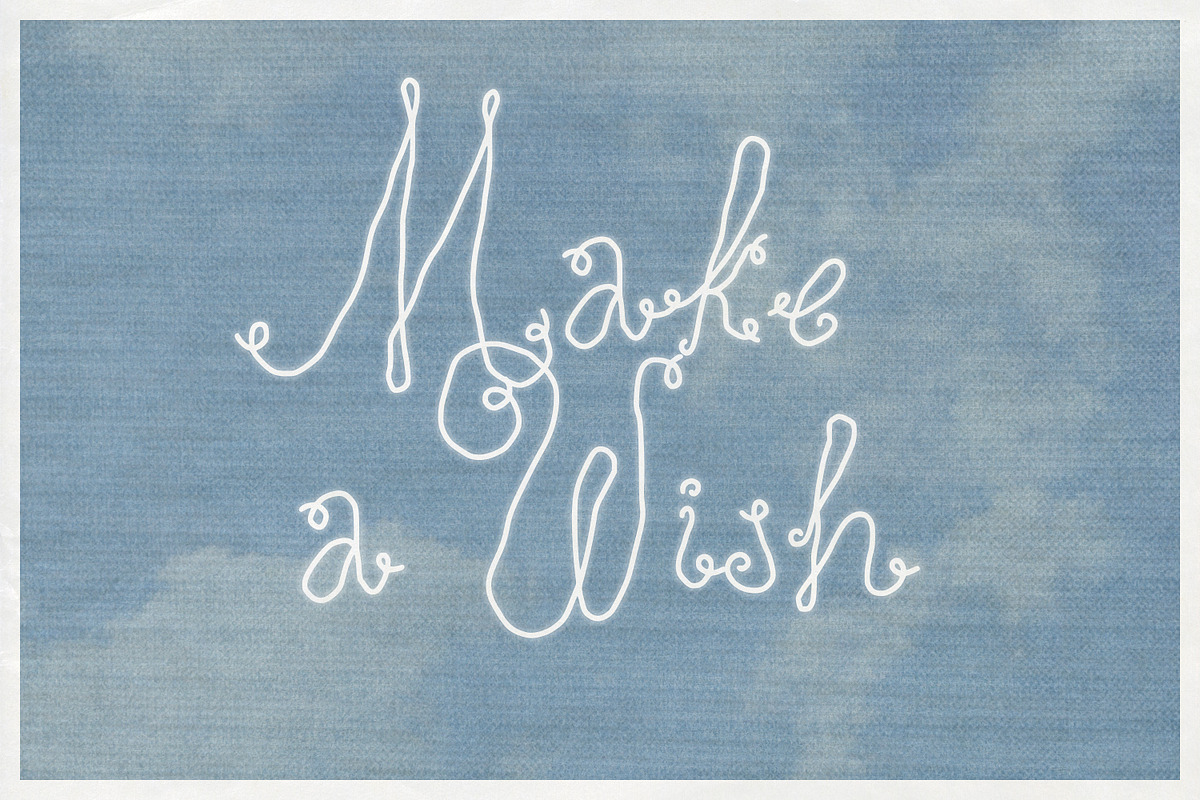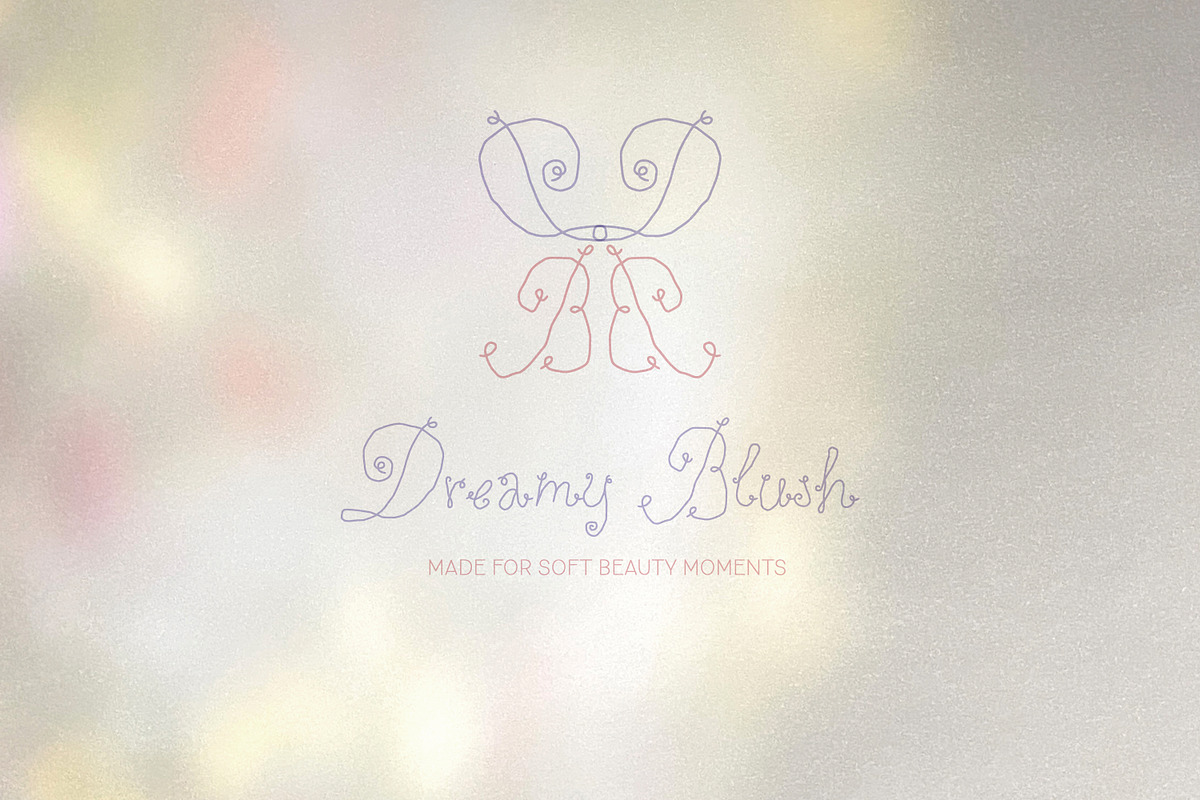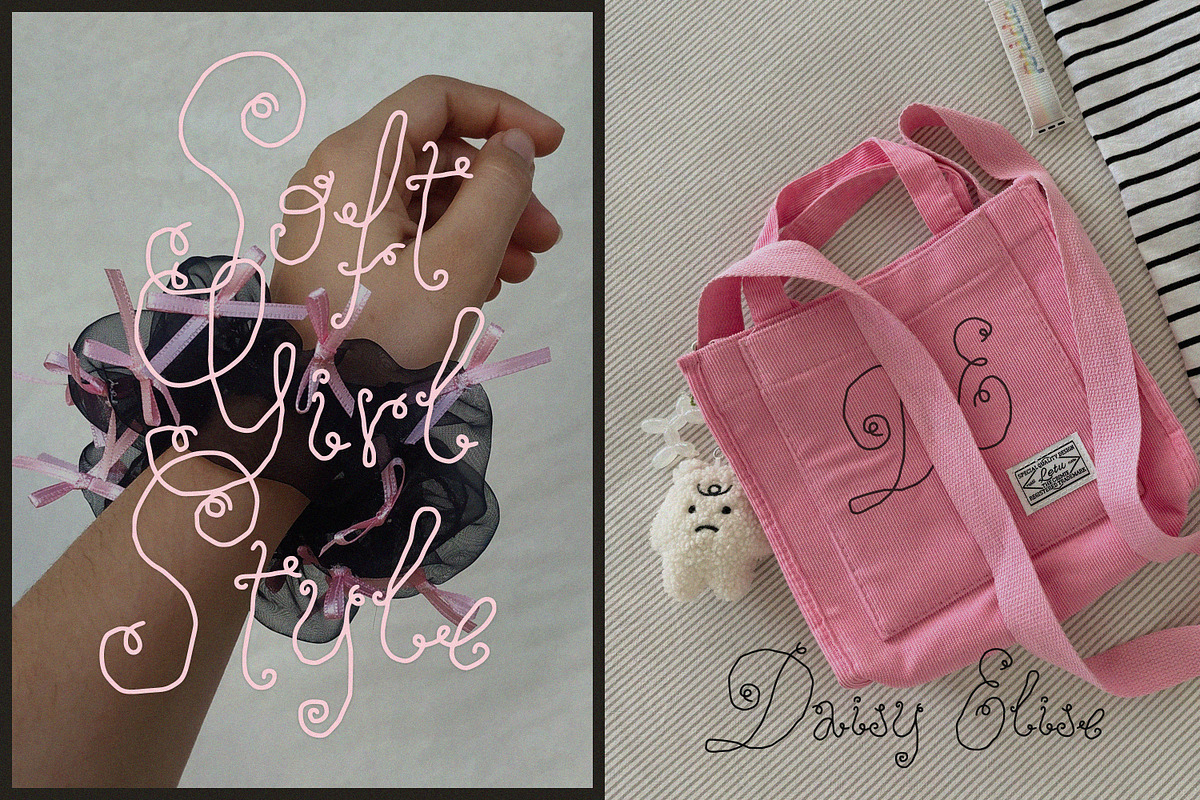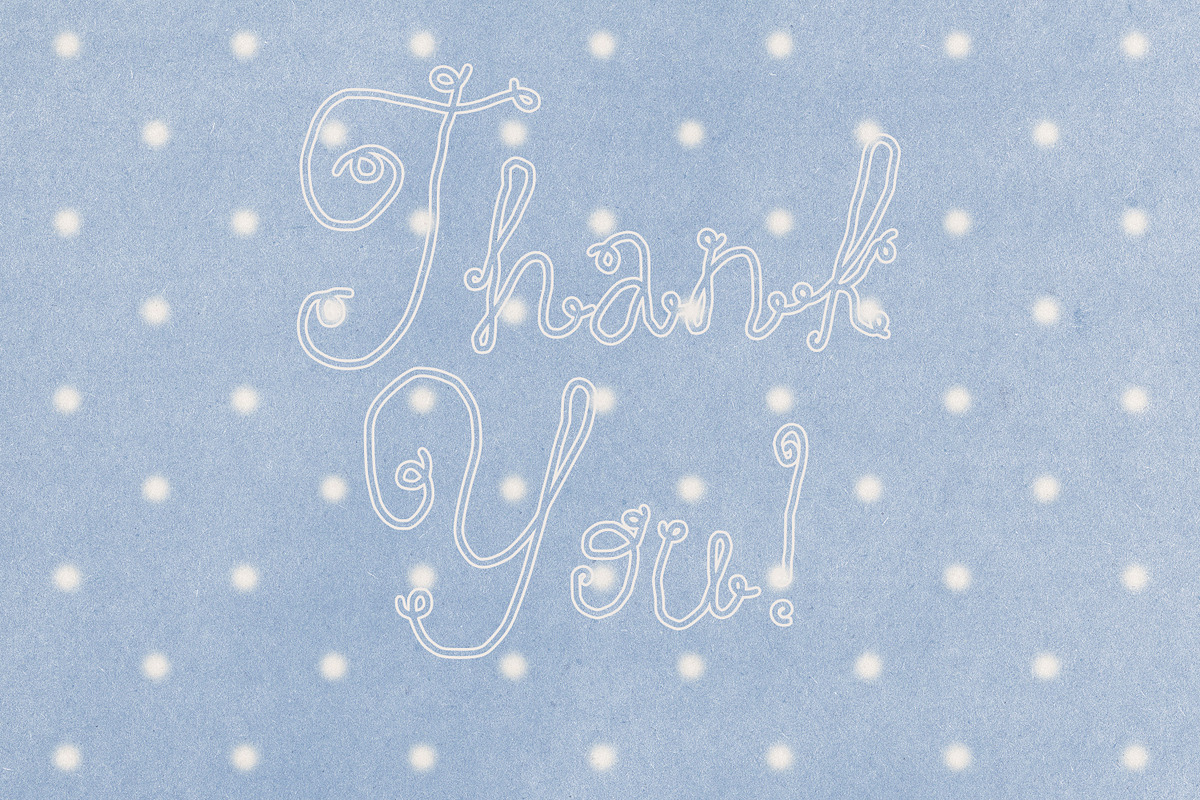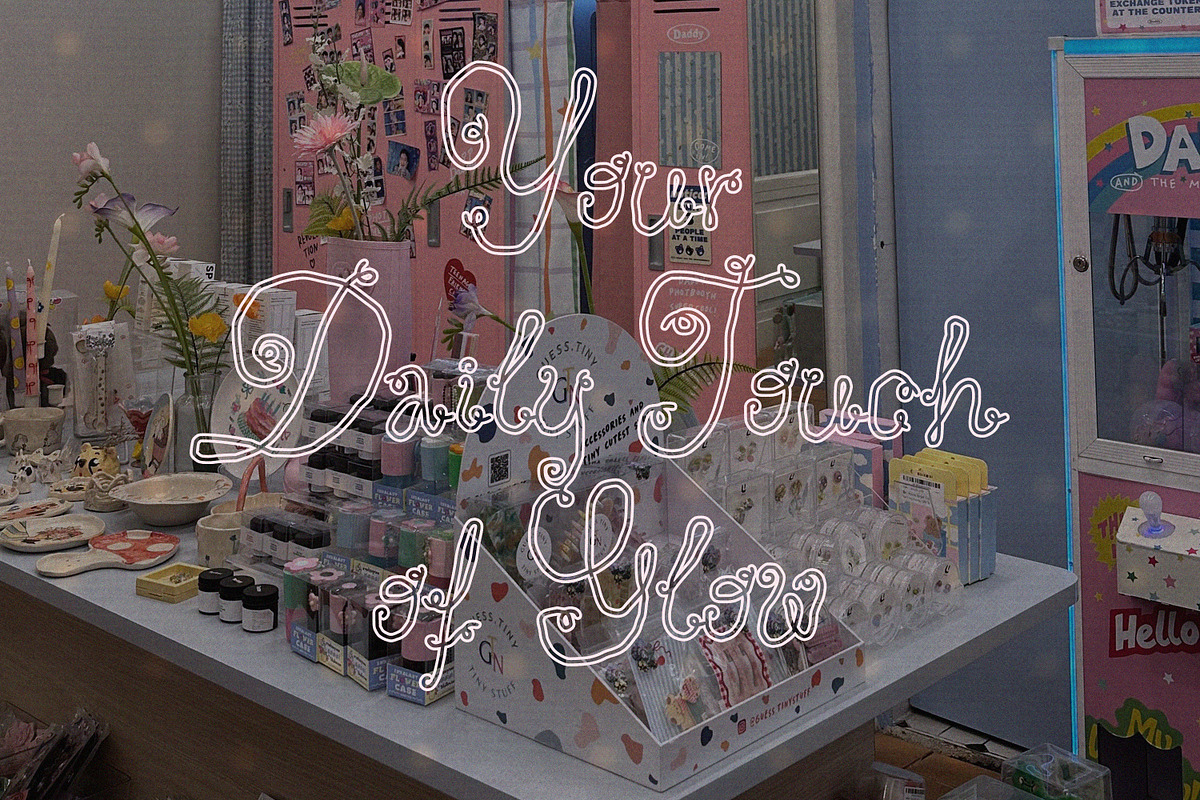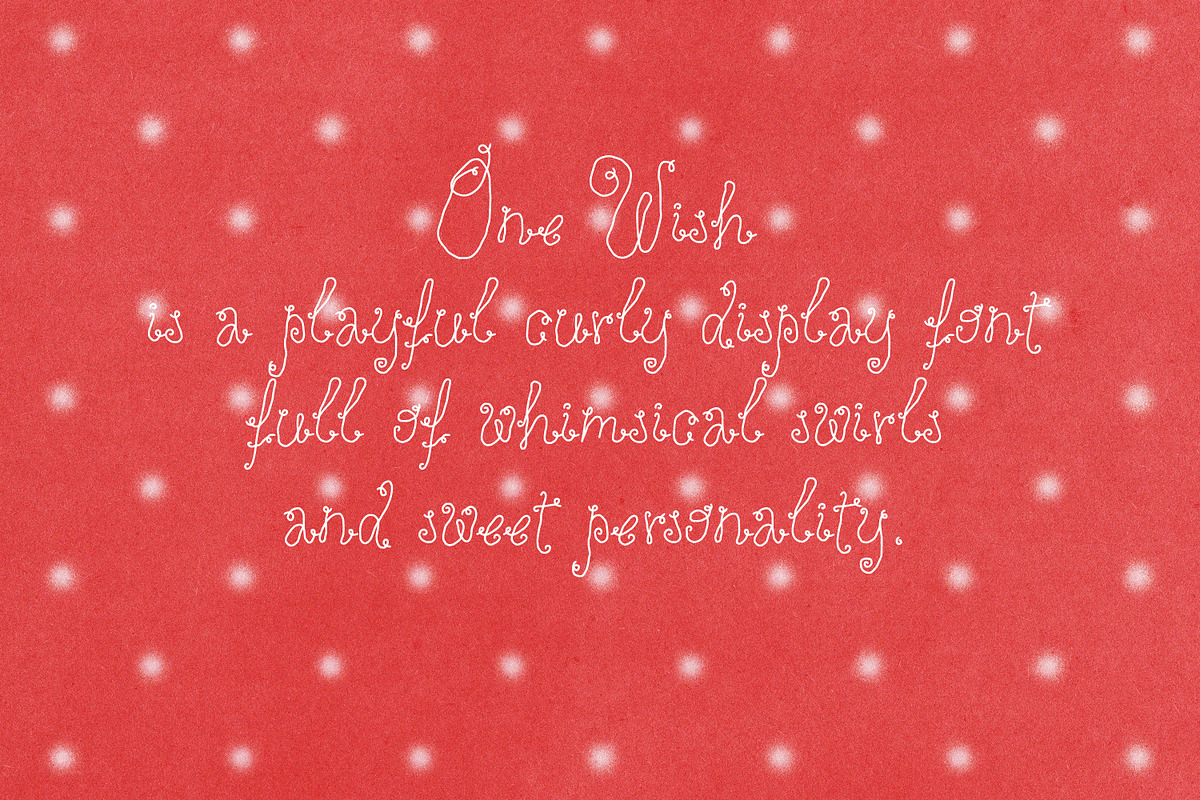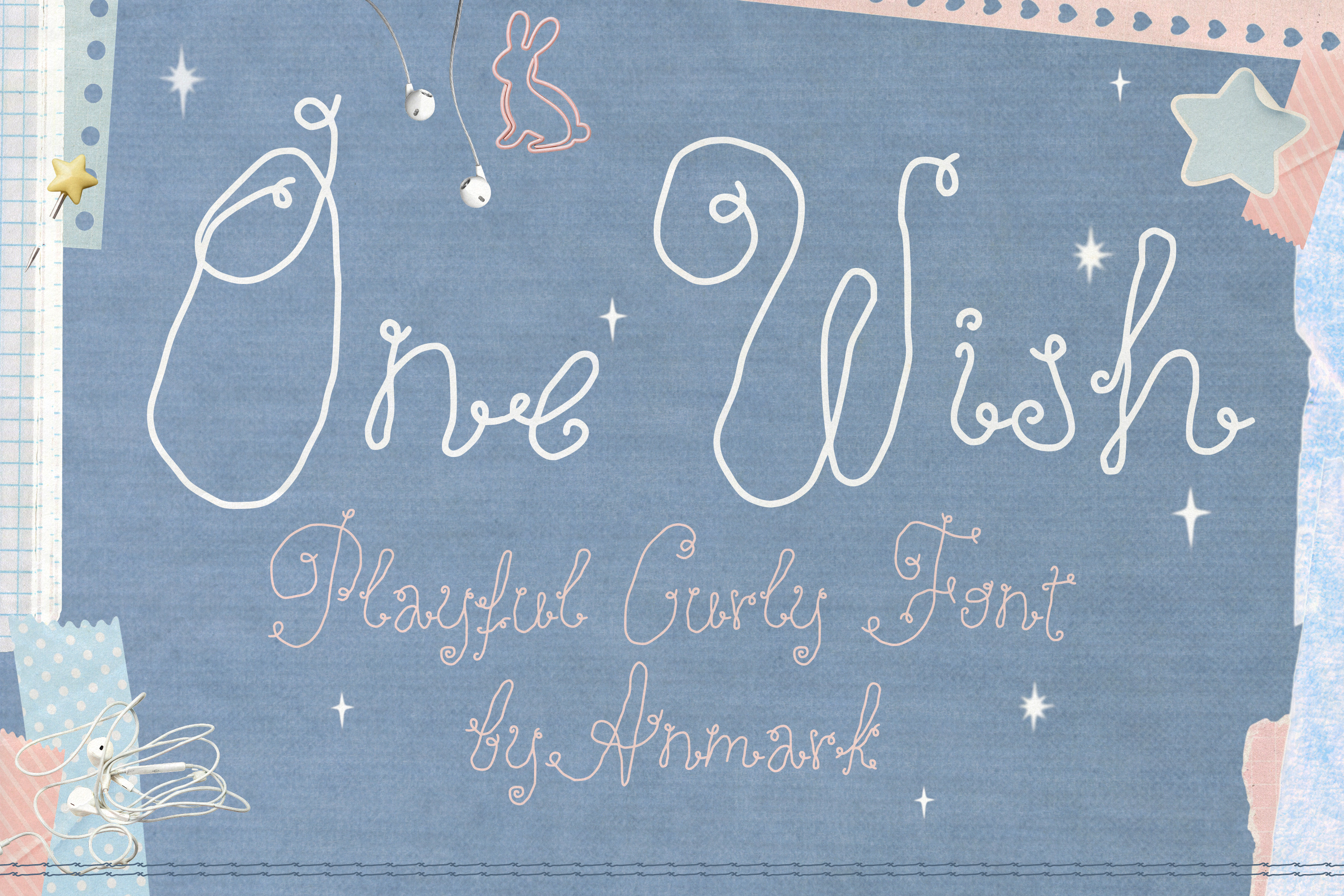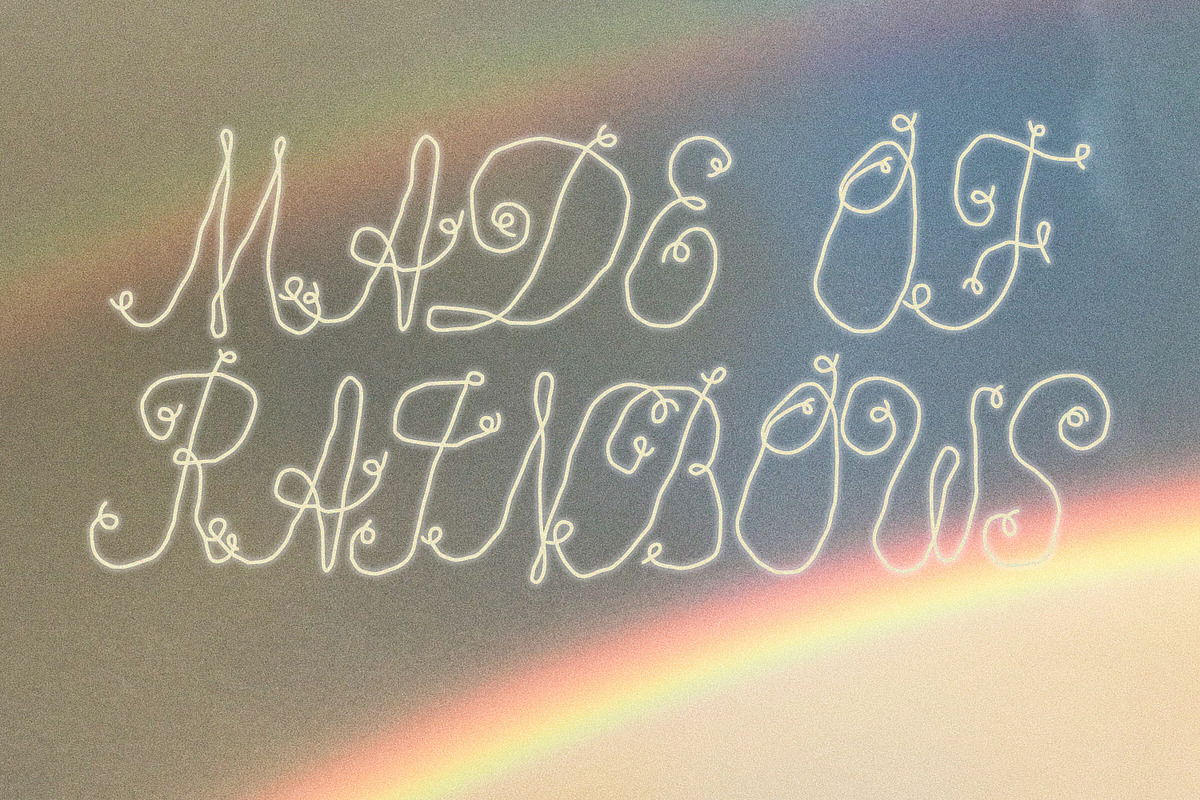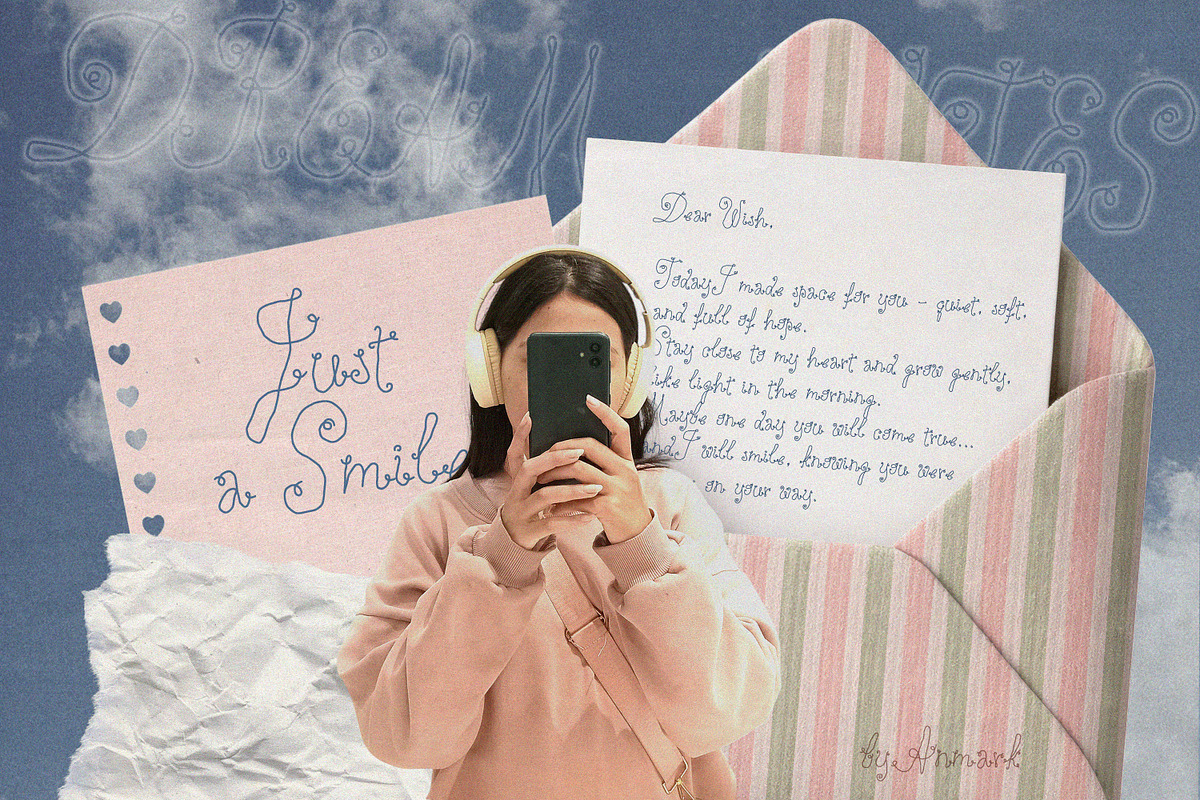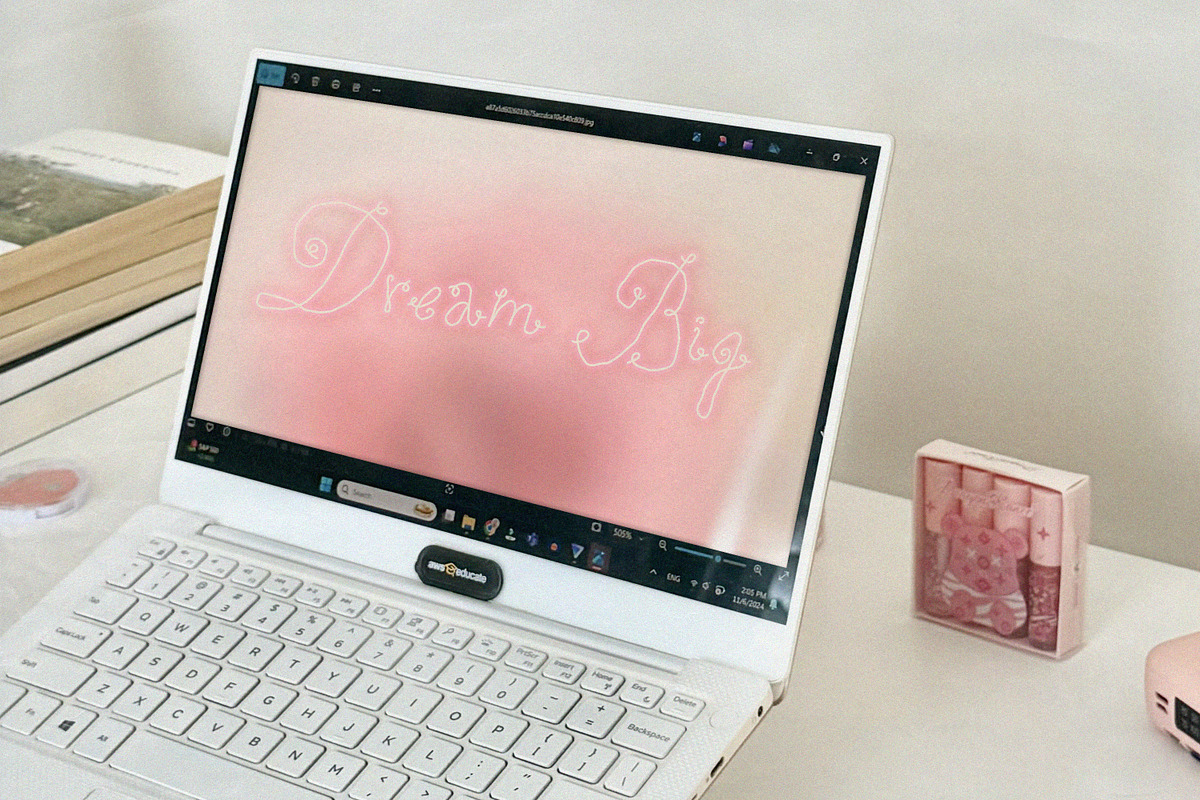
One Wish Playful Curly Font
One Wish is a playful decorative display font filled with charming curls and whimsical swirls. Its soft, lively letterforms create a sweet and dreamy mood, adding personality and warmth to every word. Light, expressive, and full of movement, this font brings a magical touch to designs that call for joy, imagination, and a hint of sparkle.
Perfect for branding, logos, packaging, and social media graphics, One Wish also shines in invitations, greeting cards, quotes, posters, and creative stationery. It’s especially lovely for feminine designs, kids’ projects, party themes, and anything that needs a cute, cheerful, and eye-catching look.